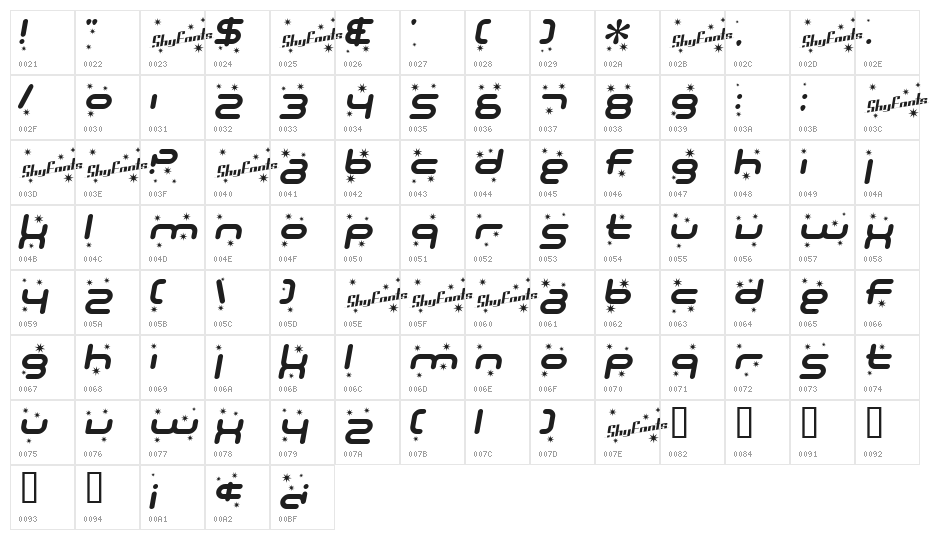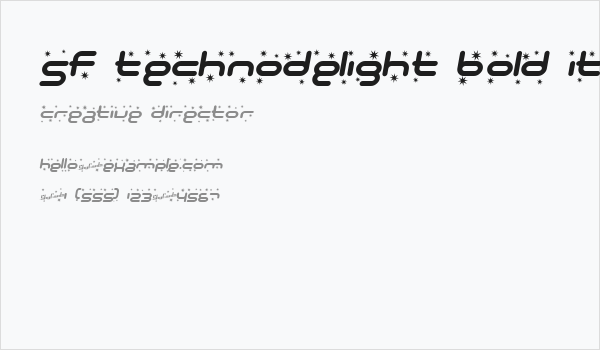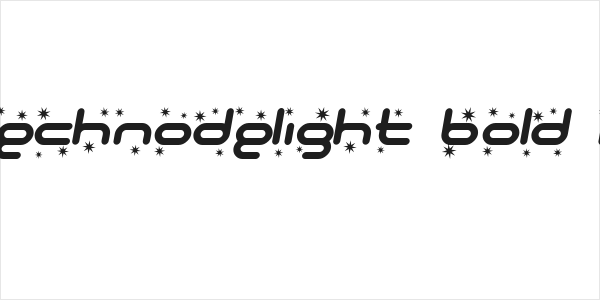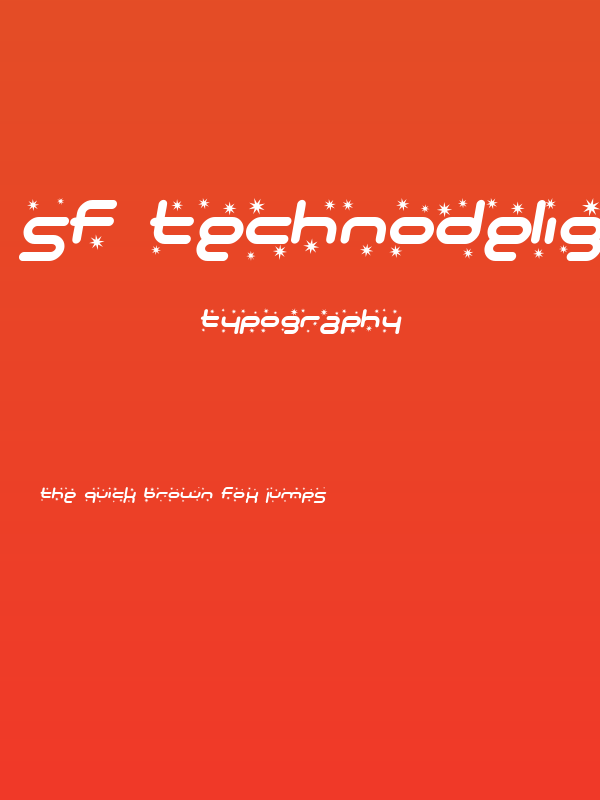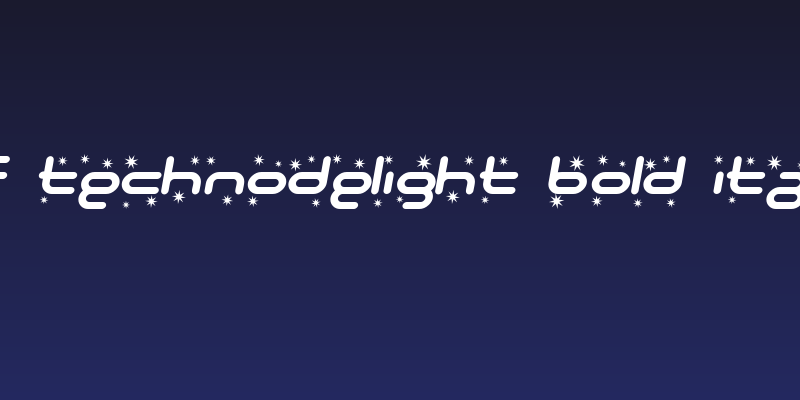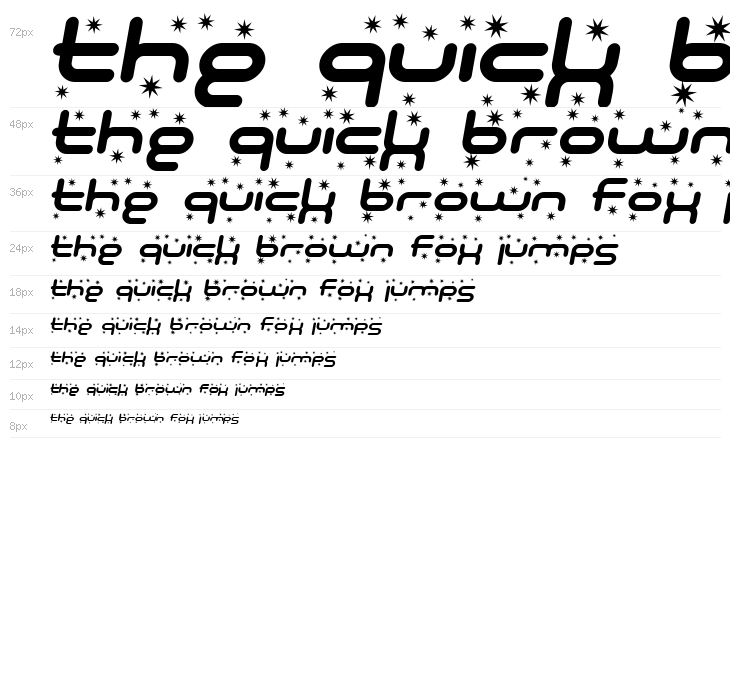
SF Technodelight Bold Italic Font
SF Technodelight Bold Italic Description
This font features a futuristic and playful design, characterized by its rounded edges and smooth curves. The letters are bold and italicized, giving them a dynamic and energetic appearance. The unique aspect of this font is the inclusion of star-like symbols that are integrated into the design, adding a whimsical and decorative touch. The characters are evenly spaced, ensuring readability while maintaining a distinctive style. The numbers and special characters follow the same design principles, making the font versatile for various uses.
Overall StyleFuturistic, Playful
Proposed ProjectsIdeal for sci-fi themed projects, children's books, creative posters, and branding for tech companies.